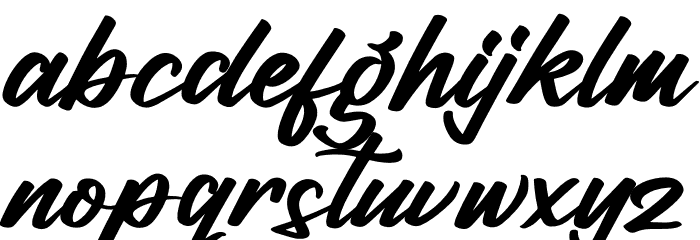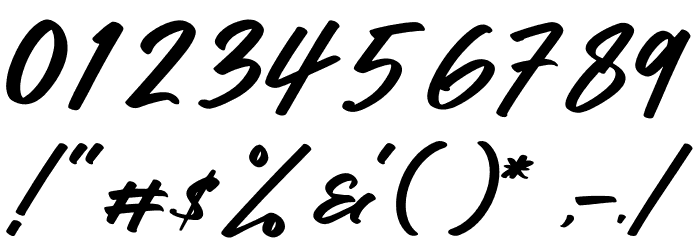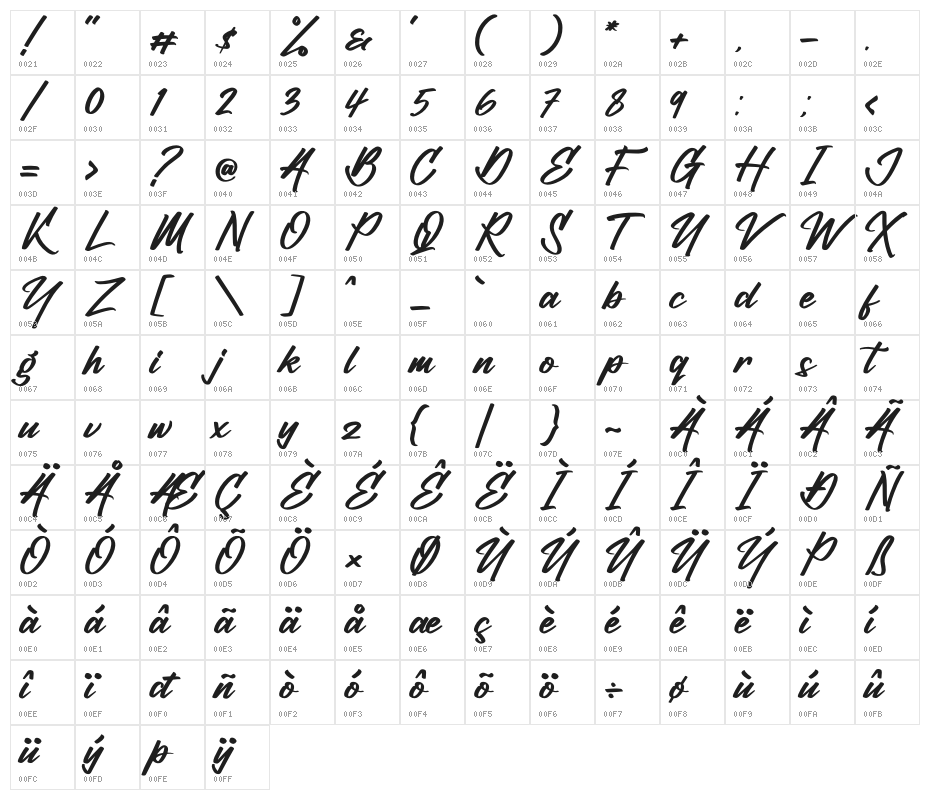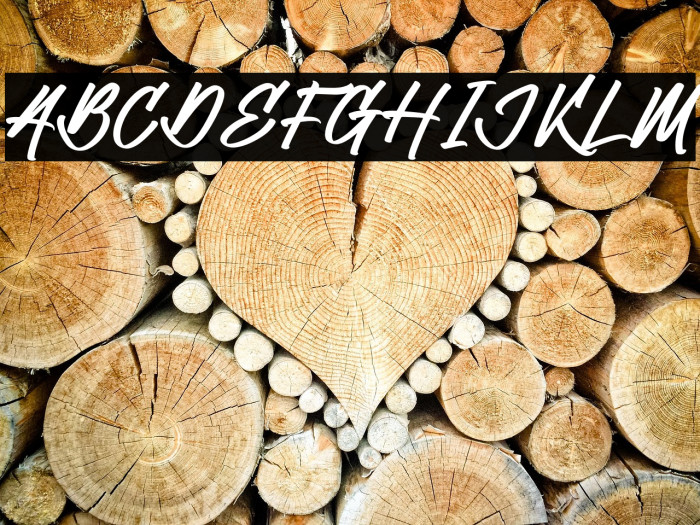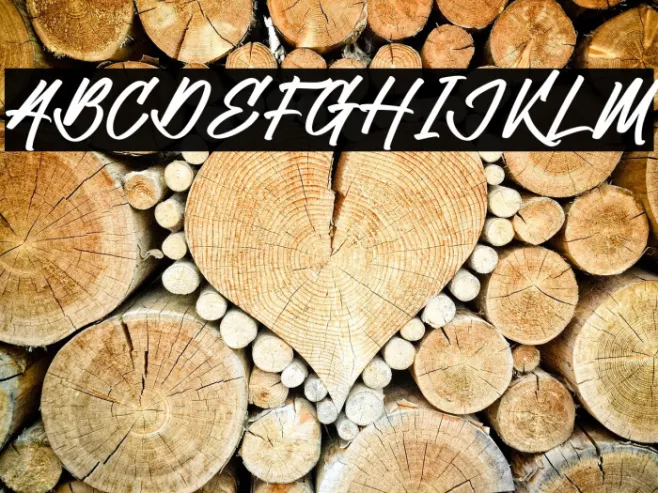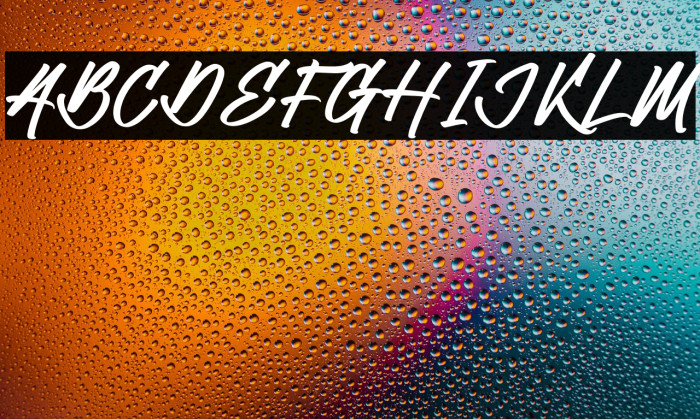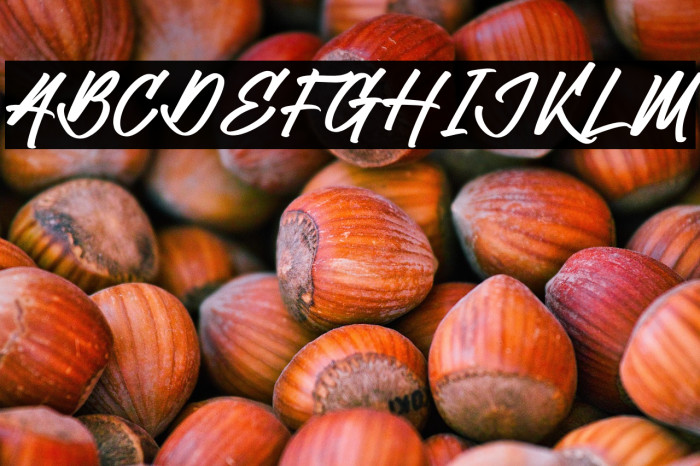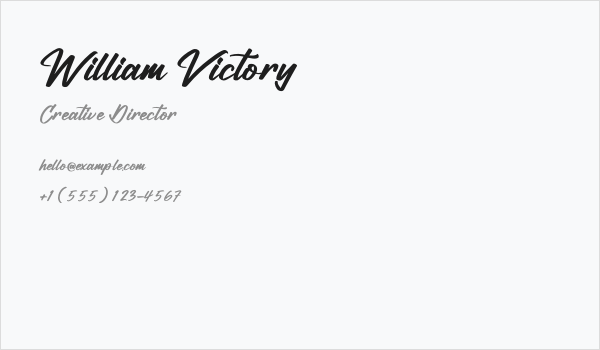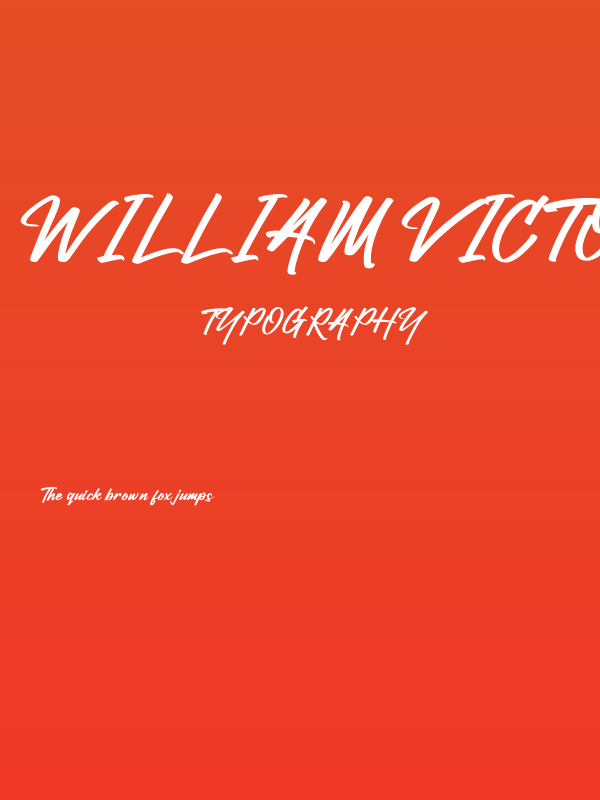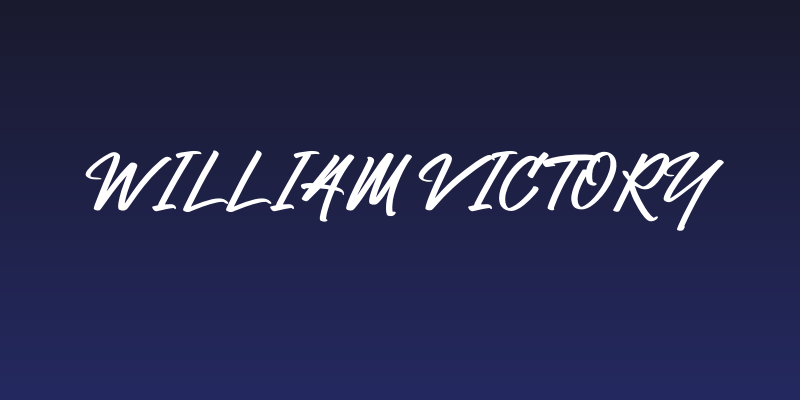
William Victory Font
This font features a dynamic and fluid script style, characterized by its elegant, cursive strokes that mimic natural handwriting. The uppercase letters exhibit a graceful slant with smooth, flowing lines, while the lowercase letters maintain a consistent rhythm and balance. The numerals are designed with a similar flair, ensuring cohesion throughout the typeface. Special characters are thoughtfully integrated, maintaining the overall aesthetic. This font exudes a sense of sophistication and creativity, making it ideal for projects that require a personal touch.
A fluid and elegant script font with a natural handwriting style.